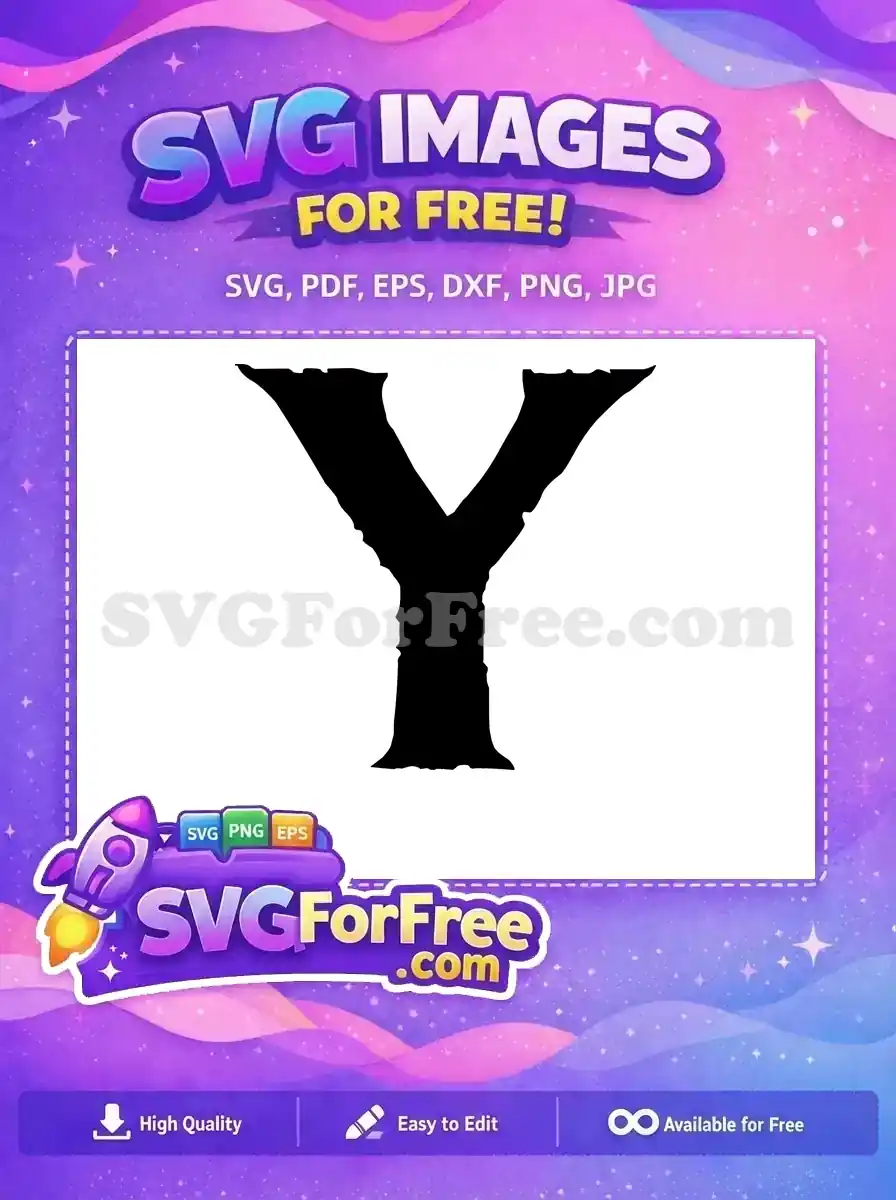
An uppercase letter ‘Y’ with a distressed, weathered texture and classic serif details. A free vintage graphic.
Free Distressed Font Free Letter Y Alphabet Free SVG